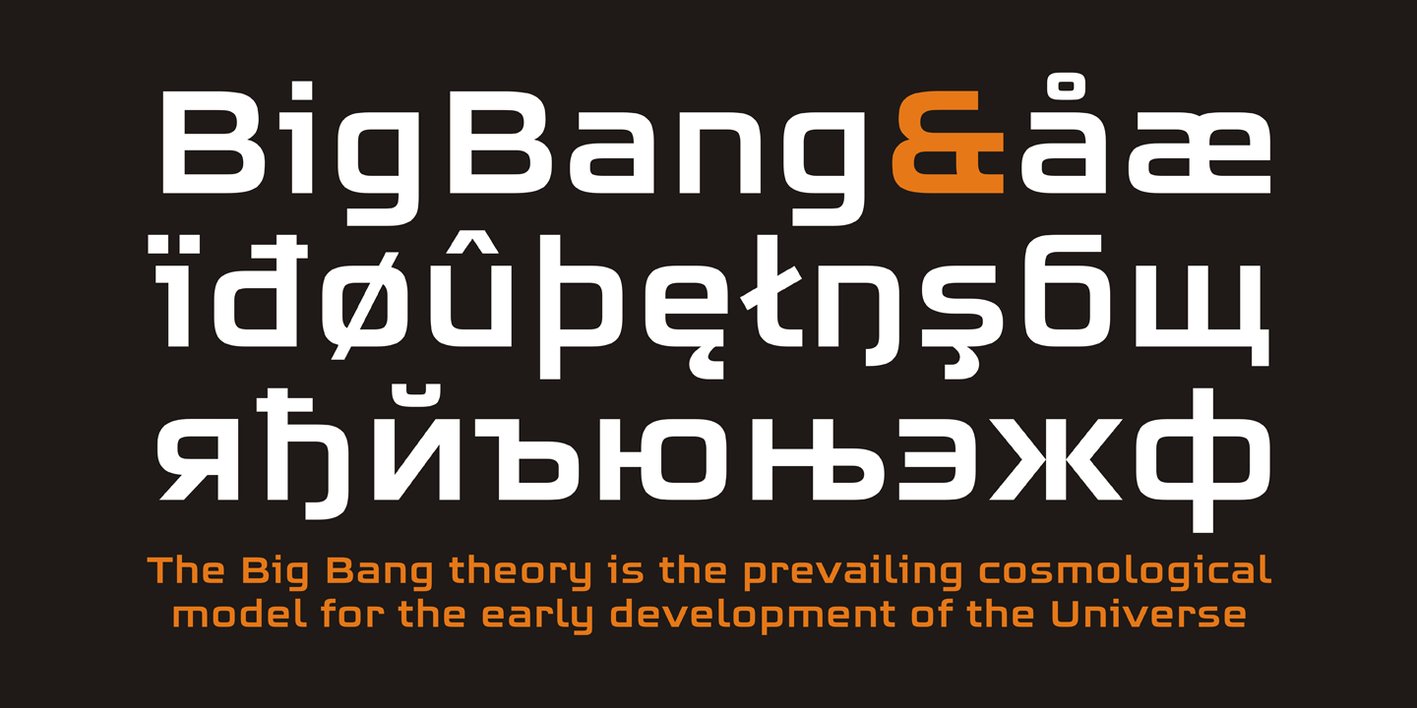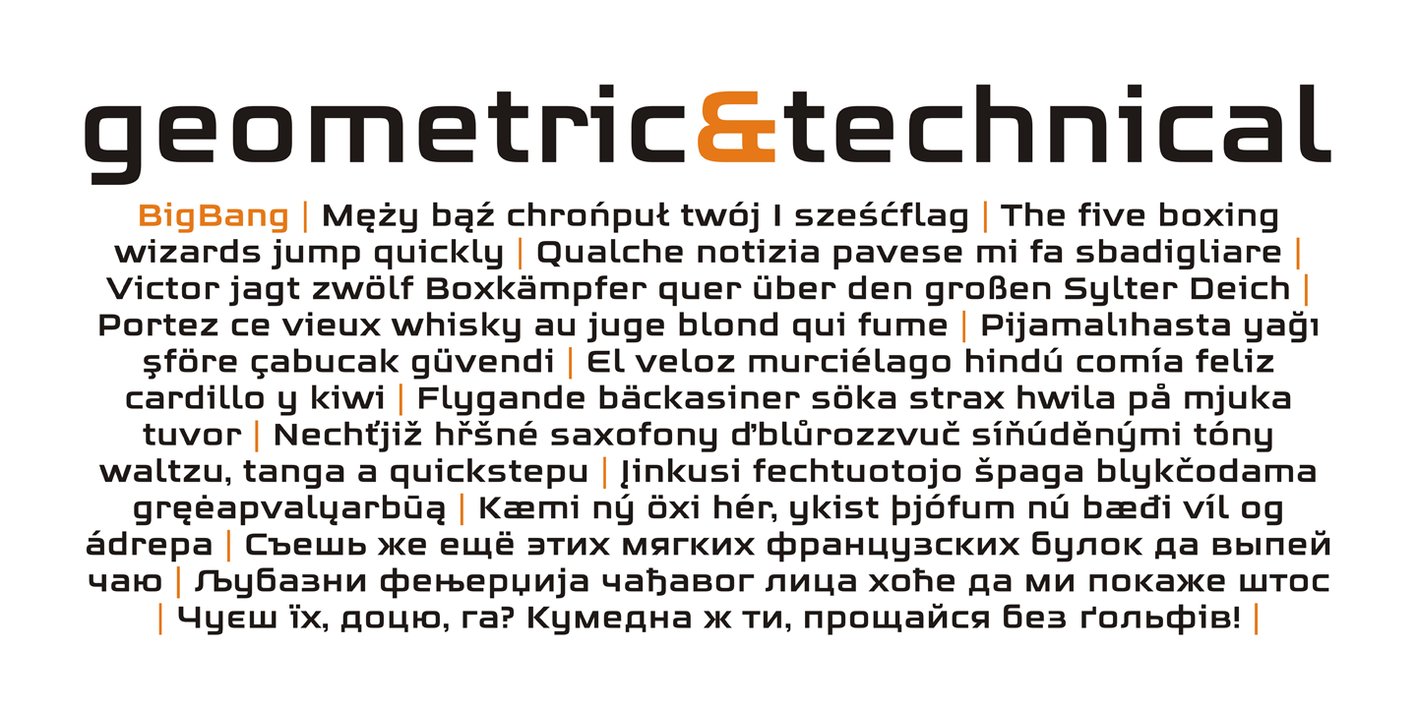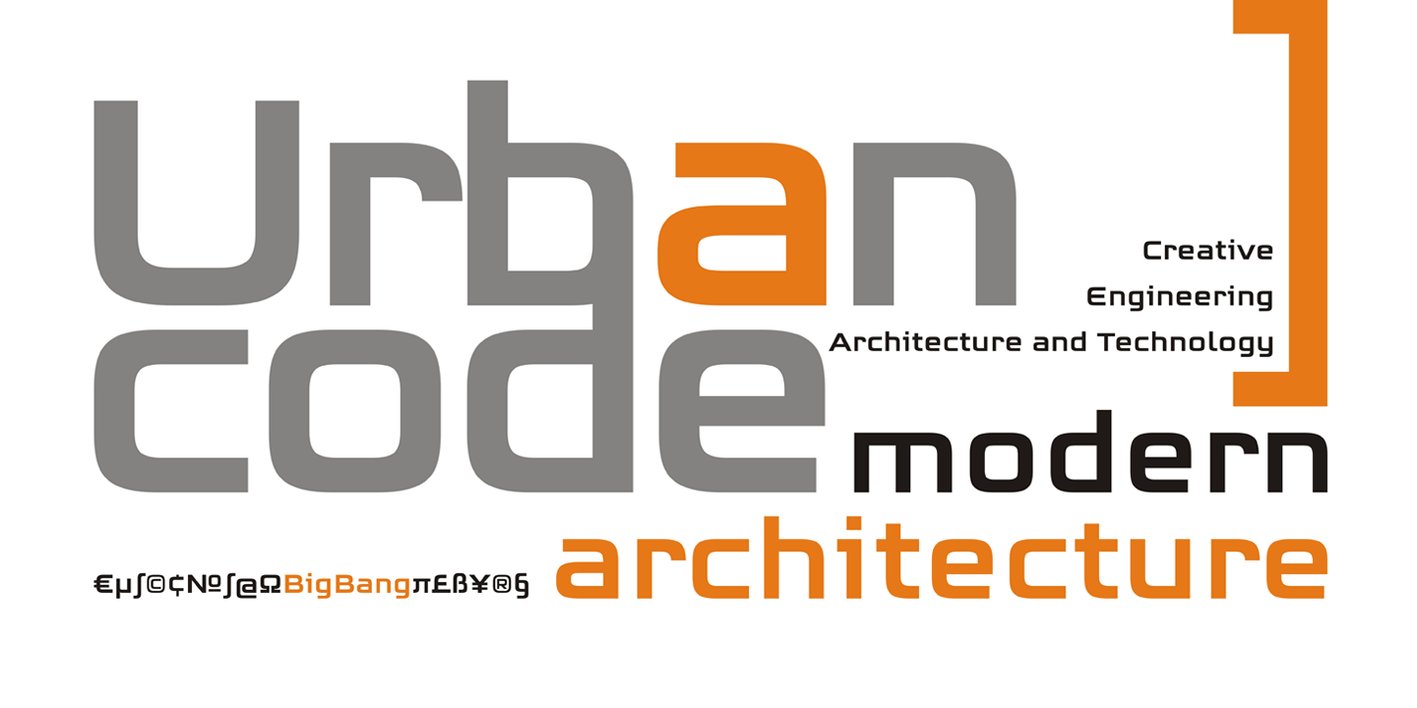
BigBang Font
BigBang is geometrically monoline, modular sans serif font, square looks glyphs. It is suitable for use in the fields of architecture, urban planning, techniques, electronics, advertising, futuristic themes, film, computers, phones, video games, logos... BigBang contains Latin and Cyrillic glyphs.